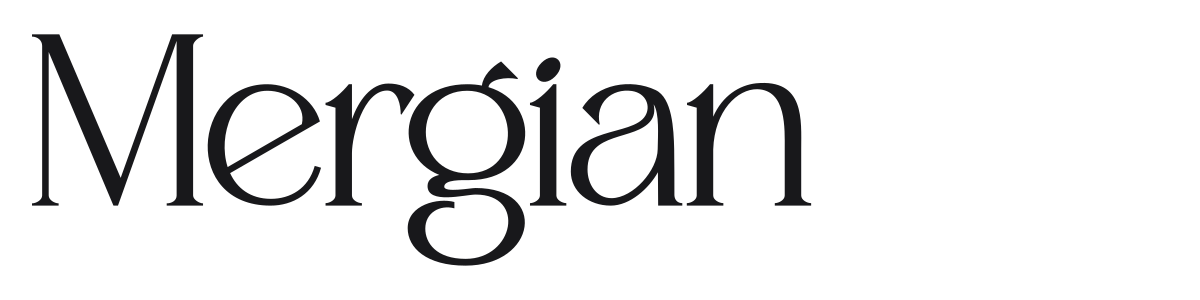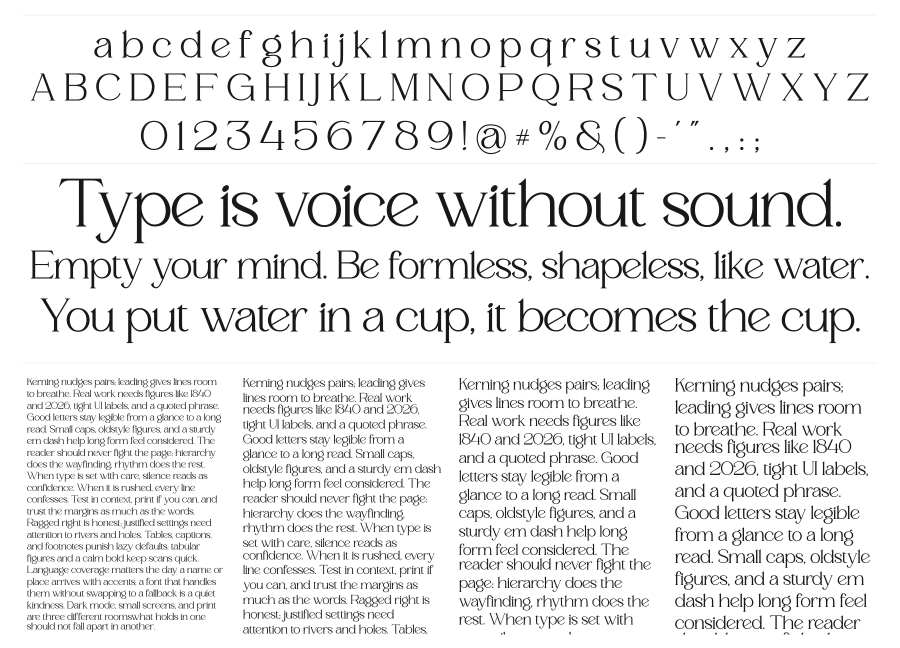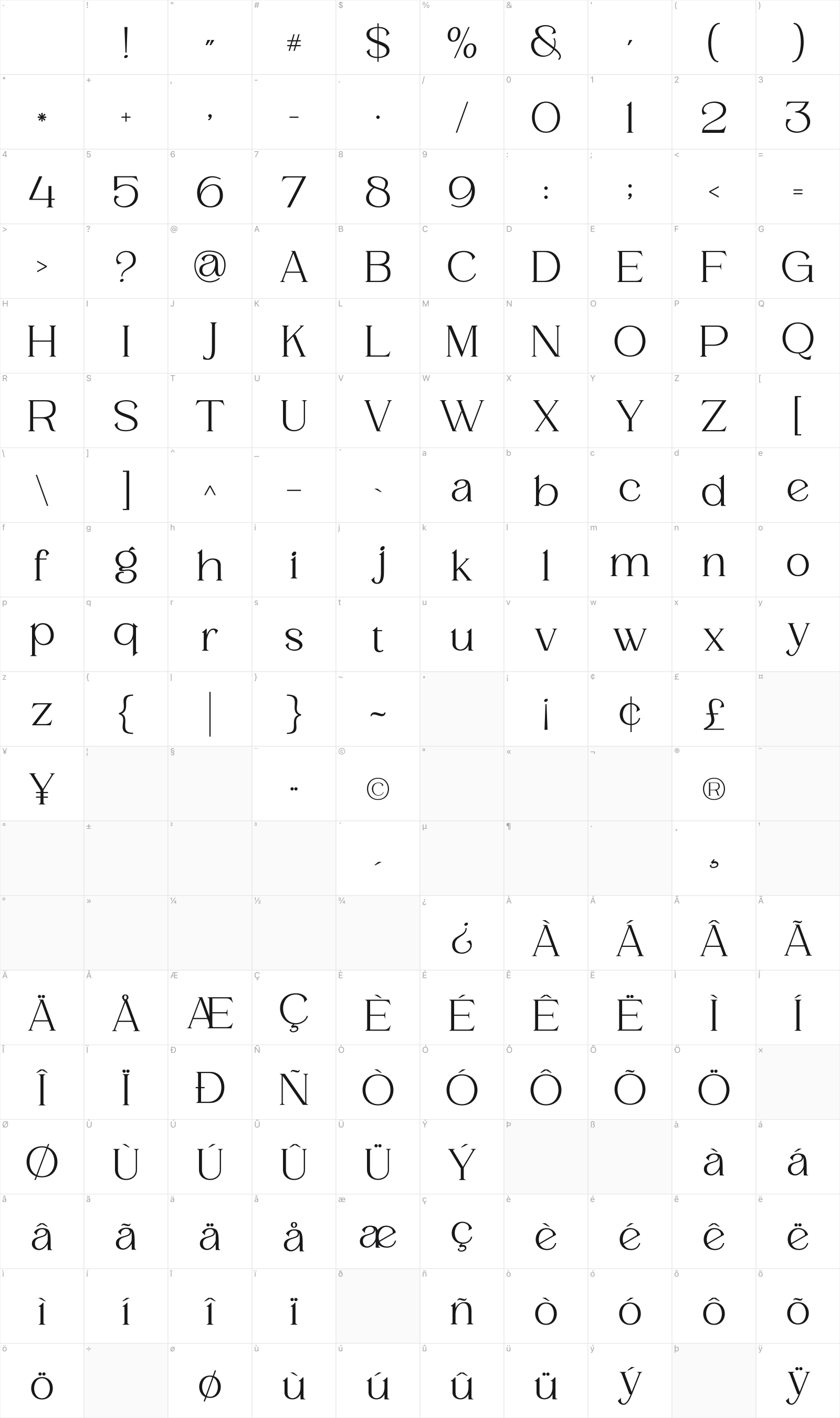
Mergian
Mergian is a contemporary high-contrast serif built on Didone proportions with dramatically thin hairlines and bold thick stems. Wide letter spacing and open forms give it a refined, editorial character that reads confidently at large sizes. It sits naturally in fashion branding, editorial design, and luxury product identities.